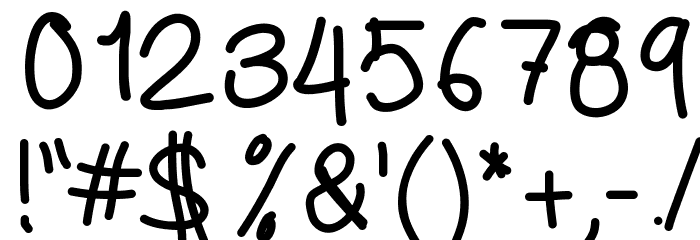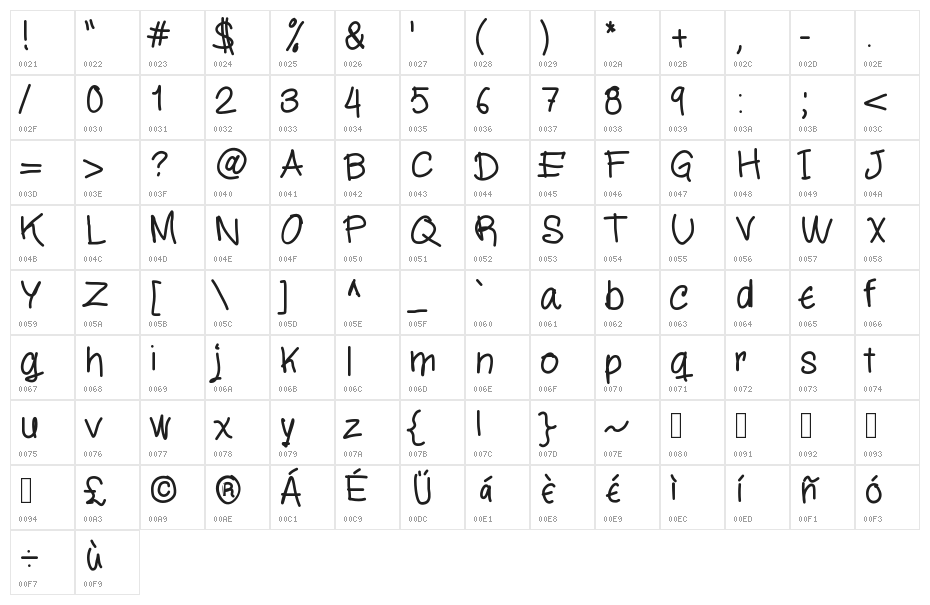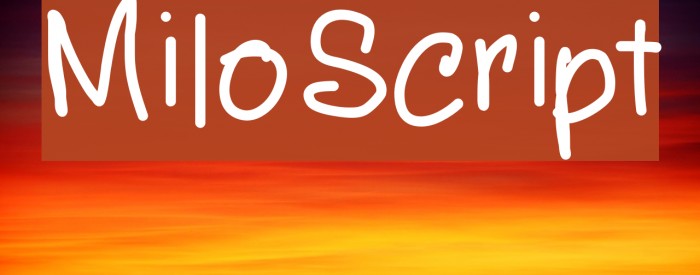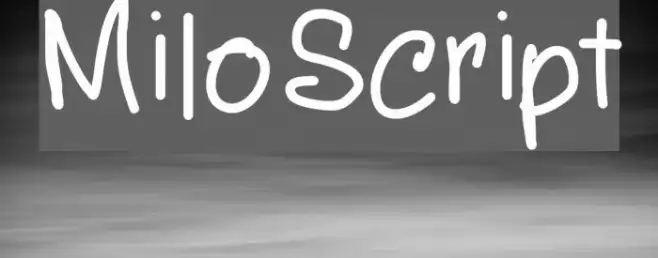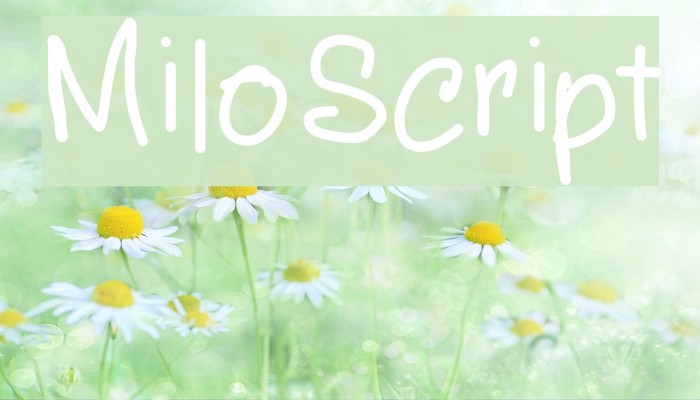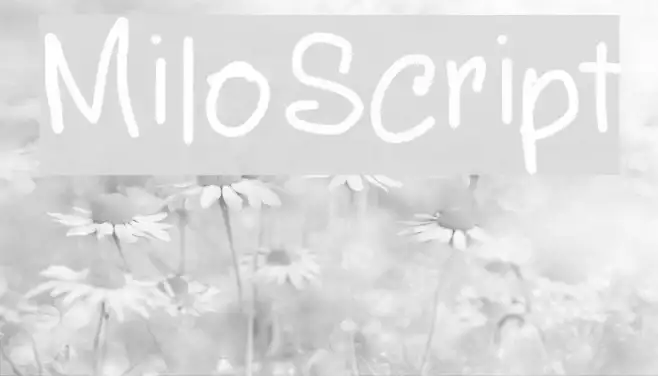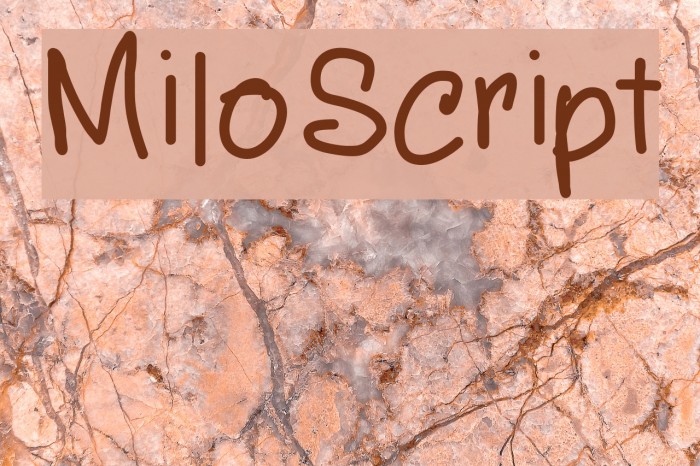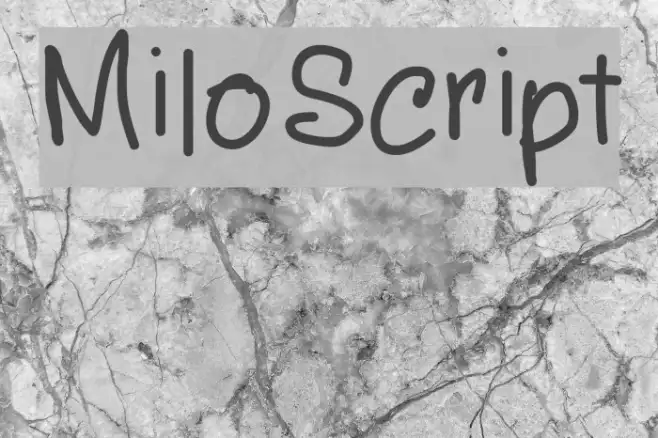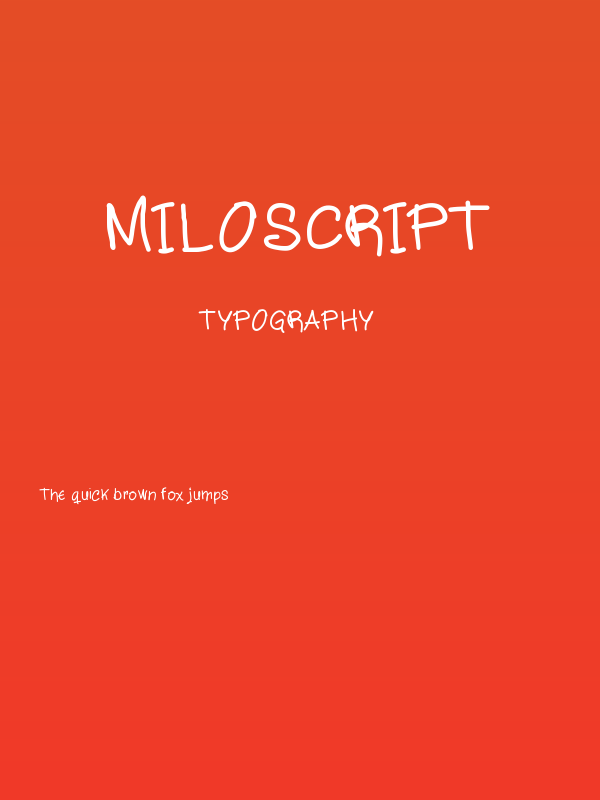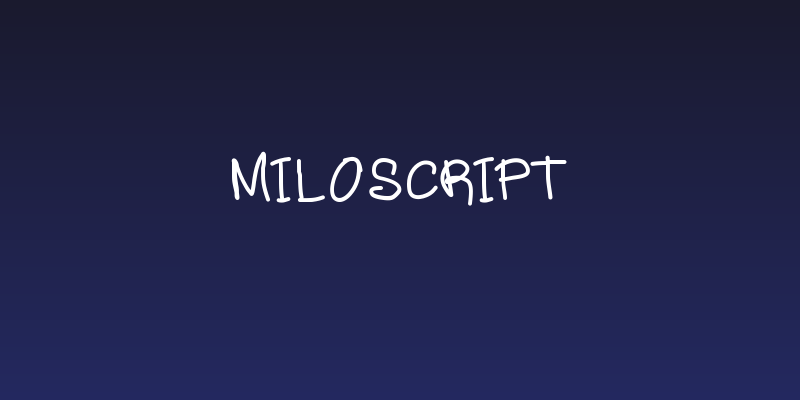
MiloScript Font
MiloScript Description
This playful and energetic font features a handwritten style with a casual and informal appearance. The characters are slightly slanted, giving a sense of motion and fluidity. The strokes are uneven, adding a personal touch that mimics natural handwriting. The uppercase letters are bold and prominent, while the lowercase letters maintain a consistent flow. Numbers and special characters are designed to match the whimsical style, making them suitable for creative projects. The overall look is friendly and approachable, perfect for conveying warmth and personality.
Camilo Marquez
Overall StyleCasual, Playful
Use CaseHeadlines, Logos, Informal Text
Proposed ProjectsIdeal for greeting cards, children's books, playful branding, and personal projects.
Camilo Marquez